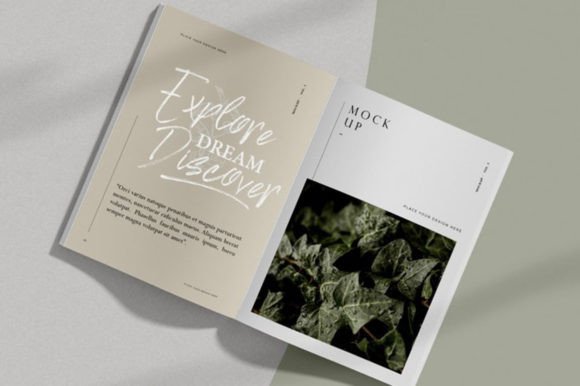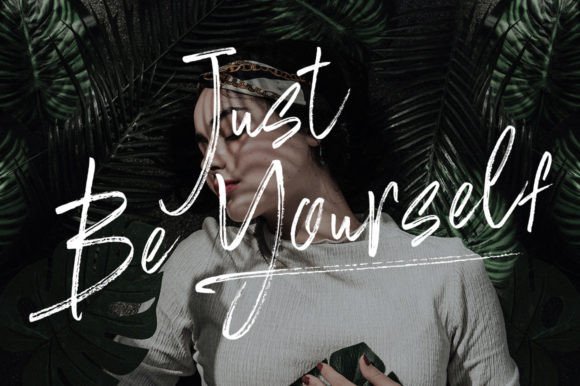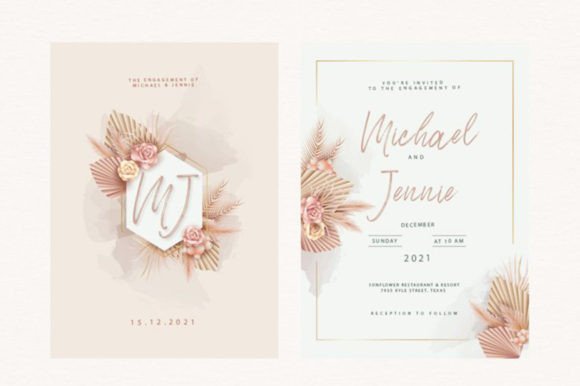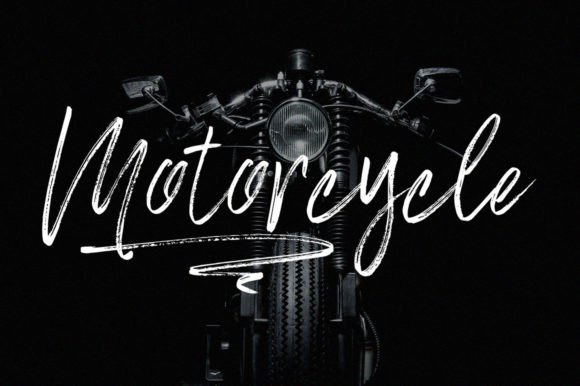
Austher Font: The Perfect Hand Brush Script for Creative Designs
Are you looking for a unique and creative font to elevate your designs? Look no further than the Austher Font, a stunning hand brush script that is perfect for a variety of projects. In this article, we’ll explore the features and benefits of the Austher script, and how it can be used to create beautiful and eye-catching designs.
What is Austher Font?
Austher script is a hand brush font that is designed to mimic the look of thick watercolor designs or handwriting styles. This typeface is ideal for use in a variety of creative projects, such as blog titles, posters, wedding elements, t-shirts, clothing, book covers, business cards, greeting cards, branding, merchandise, and so much more.
Key Features of Austher Font
The Austher Font has several key features that make it a versatile and attractive choice for designers and crafters. Some of its notable features include:
- Hand brush script: The Austher Font has a unique, hand-crafted feel that gives it a personal and artistic touch.
- Watercolor texture: The font features a subtle watercolor texture that adds depth and visual interest to your designs.
- High-quality design: The Austher Font is designed with high-quality craftsmanship, ensuring that it looks great in any size or application.
Uses for Austher Font
The Austher Font is an incredibly versatile typeface that can be used in a wide range of creative projects. Here are some ideas to get you started:
- Blog titles and headings: Use the Austher Font to create eye-catching blog titles and headings that will grab the attention of your readers.
- Posters and flyers: The Austher Font is perfect for creating bold and eye-catching posters and flyers for events, promotions, or products.
- Wedding elements: Use the Austher Font to create beautiful and elegant wedding elements, such as invitations, programs, and stationery.
- T-shirts and clothing: The Austher Font is a great choice for designing custom t-shirts, hoodies, and other clothing items.
- Book covers and publishing: Use the Austher Font to create eye-catching book covers, journals, and other publishing materials.
- Business cards and branding: The Austher Font can be used to create professional and stylish business cards, logos, and other branding materials.
- Greeting cards and stationery: Use the Austher Font to create beautiful and heartfelt greeting cards, stationery, and other paper crafts.
- Merchandise and crafts: The Austher Font is perfect for designing a wide range of merchandise, such as mugs, tote bags, and other crafts.
Benefits of Using Austher Font
The Austher Font offers a range of benefits for designers and crafters, including:
- Unique and creative: The Austher Font offers a unique and creative way to add a personal touch to your designs.
- Easily readable: Despite its artistic feel, the Austher Font is easily readable, making it perfect for use in a variety of applications.
- High-quality design: The Austher Font is designed with high-quality craftsmanship, ensuring that it looks great in any size or application.
- Versatile: The Austher Font can be used in a wide range of creative projects, from digital designs to print materials.
Tips for Using Austher Font
Here are some tips for getting the most out of the Austher Font:
- Experiment with colors: The Austher Font looks great in a range of colors, so don’t be afraid to experiment and find the perfect hue for your design.
- Mix and match: Try pairing the Austher Font with other fonts or design elements to create a unique and eye-catching look.
- Pay attention to size: Make sure to adjust the size of the Austher Font to suit your design, as it can look great in both large and small sizes.
The Austher Font is a beautiful and versatile hand brush script that is perfect for a wide range of creative projects. With its unique and artistic feel, high-quality design, and ease of use, it’s an ideal choice for designers and crafters looking to add a personal touch to their work. Whether you’re creating blog titles, posters, wedding elements, or merchandise, the Austher Font is sure to impress.